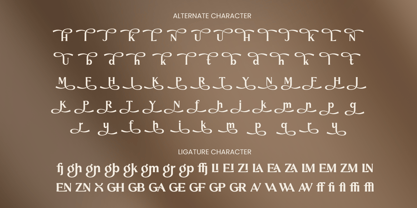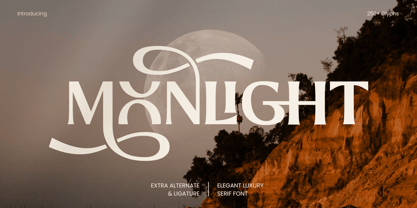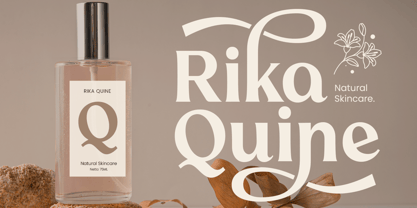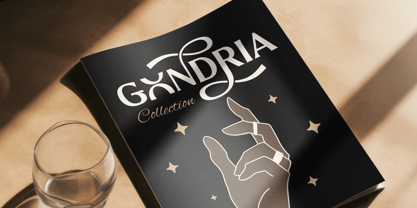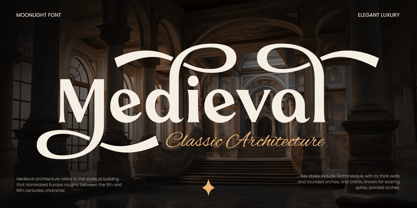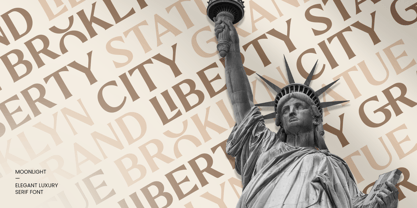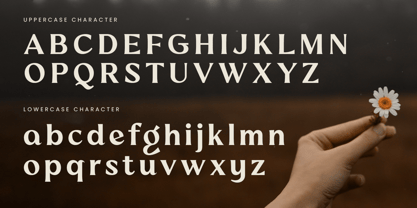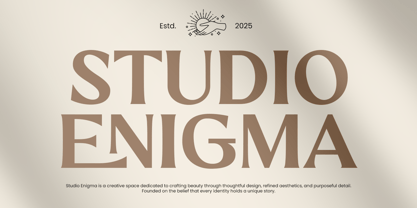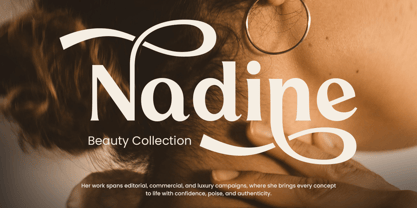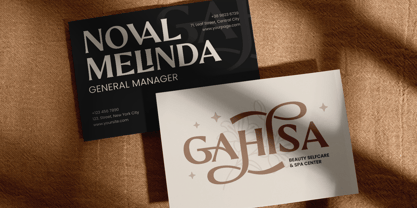
Moonlight is an elegant luxury font crafted for premium branding, wedding invitations, logos, and high-end designs. Its refined letterforms and graceful curves provide a sophisticated touch that elevates any creative project.
Inspired by classic elegance and contemporary design, Moonlight brings a luxurious feel to both print and digital media, making it ideal for fashion, lifestyle, and luxury brands.
Moonlight – Elegant Luxury Font Features
Elegant and sophisticated character set
Perfect for weddings, branding, and luxury designs
Uppercase, lowercase, numerals, and punctuation included
OpenType features for extra versatility
Moonlight